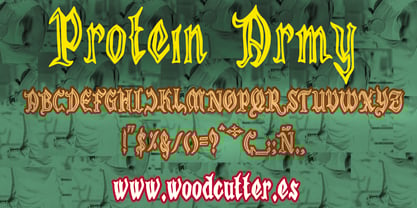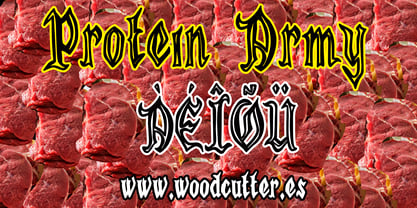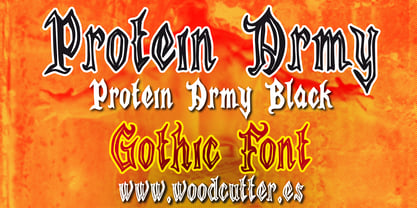
Protein Army
by Woodcutter
The Protein Army Font Family was designed by Jordi Manero and published by Woodcutter. Protein Army contains 2 styles and family package options. More about this family
“Protein Army” is a typeface family in uppercase and lowercase with accents, featuring a stylized, pointed gothic style with a strong visual presence. Each letter is crafted with sharp, aggressive contours, evoking armor, blades, and forged iron. The design merges medieval tradition with a modern graphic edge, resulting in a powerful, tense, and commanding look.
The family includes two styles:
– Protein Army, with outlined letters drawn in thick, imperfect strokes, giving the impression of being hand-etched or forcefully stamped.
– Protein Army Black, with the same shapes fully filled in, creating a bolder, more solid appearance with high contrast.
Both versions retain the gothic essence but reinterpret it through a modern, experimental lens, making it ideal for music posters, video games, tattoos, album covers, alternative branding, or urban design. “Protein Army” exudes strength, aggression, and underground style in every word, using distortion and weight to deliver maximum visual impact.